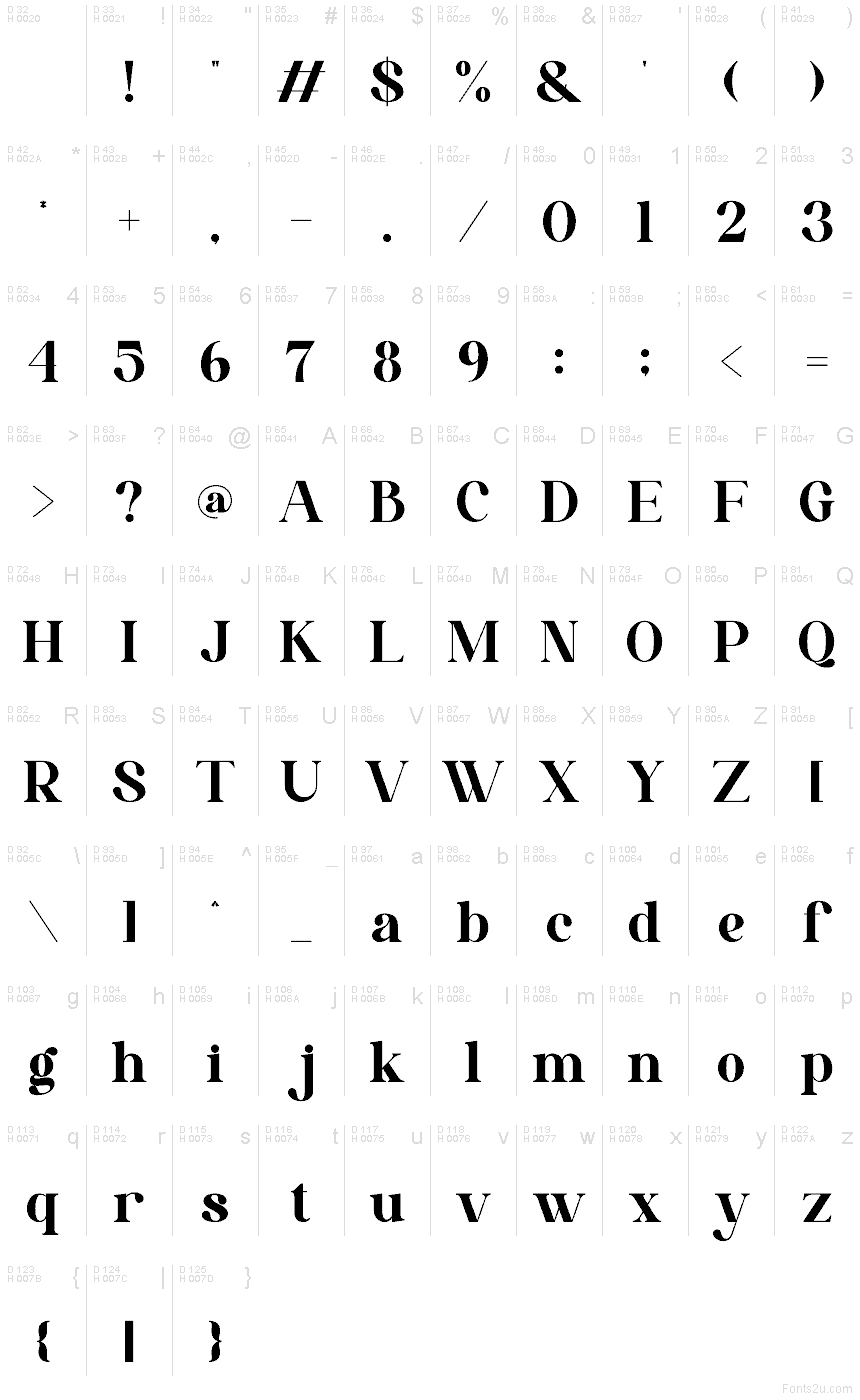
Oshien
Oshien font by Ermedia Studio is a free bold display serif font. It stands out with sculpted wedge serifs, inky thick-to-thin transitions, and tight, confident spacing that snaps lines into place. The letterforms feel carved rather than drawn—sharp joins, broad bowls, and sleek terminals create a luxe, editorial presence without getting fussy.
Using Oshien, headlines gain drama and polish for fashion branding, beauty packaging, magazine mastheads, book covers, posters, restaurant menus, and elegant invitations. The rhythm is punchy yet refined, so it shines at larger sizes. Pair this free font with a light, neutral grotesk for body copy, and give it a touch of tracking to let the contrasts breathe.